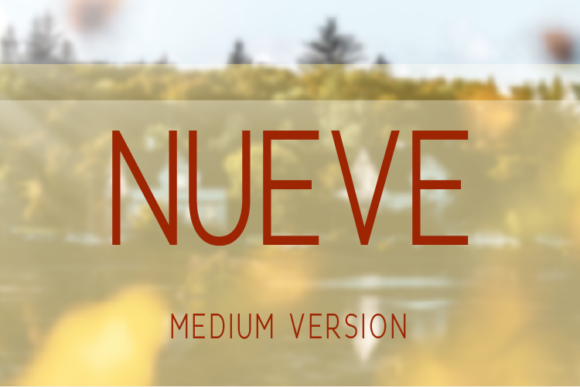
**Nueve Medium Font: The Key to Unlocking Your Brand's True Potential**
In a world saturated with visual noise, finding a font that stands above the rest is a rare gem. Enter Nueve Medium, a sans serif masterpiece that embodies elegance, clarity, and timeless appeal.
**Timeless Beauty, Unmatched Versatility**
Nueve isn't just another font; it's a versatile work of art that empowers you to craft a wide range of stunning designs. From captivating logos that leave a lasting impression to sleek website designs that guide users effortlessly, Nueve rises to every challenge with grace.
**Pixel-Perfect Precision for Impeccable Results**
Every curve, every stroke in Nueve Medium Font has been meticulously crafted to deliver unmatched precision. This attention to detail ensures that your designs retain their crispness and legibility, whether viewed on a tiny screen or a grand billboard.
**Emotional Resonance for Unforgettable Connections**
Fonts have an uncanny ability to evoke emotions and establish instant connections. Nueve Medium's graceful curves and balanced proportions create a sense of harmony and sophistication, making it the perfect choice for designs that aim to inspire, engage, and leave a lasting mark.
**Endless Possibilities for Creative Expression**
Unlock your creative potential with Nueve Medium. Its versatility knows no bounds, empowering you to create everything from eye-catching social media graphics to enchanting wedding invitations, from captivating movie posters to unforgettable product packaging.
**Beyond Ordinary, Into the Extraordinary**
Nueve Medium Font is more than just a font; it's a key to unlocking your brand's true potential. Its timeless beauty, unmatched versatility, pixel-perfect precision, emotional resonance, and endless possibilities for creative expression will empower you to create designs that stand out, inspire, and leave an indelible mark on your audience.